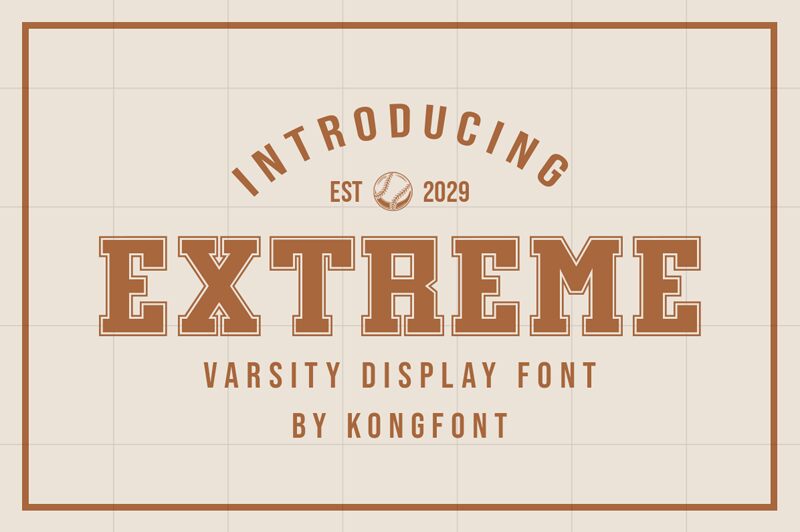
Extreme
Extreme, crafted by Kong Font, is a bold and impactful display font that brings an old-school aesthetic into the modern design landscape. Its semi-expanded width conveys a sense of stability and presence, making it an ideal choice for headlines that demand attention. The assertive style of Extreme, characterized by its robust weight and distinctive character outlines, creates a visual anchor in any creative composition.
This font's nostalgic charm is perfectly suited for projects aiming to evoke a retro vibe while maintaining contemporary readability. From branding to poster design, Extreme offers designers a versatile tool imbued with personality. Its unique appeal lies in the balance between classic typography and cutting-edge design trends-ensuring that your message stands out with both authority and style.